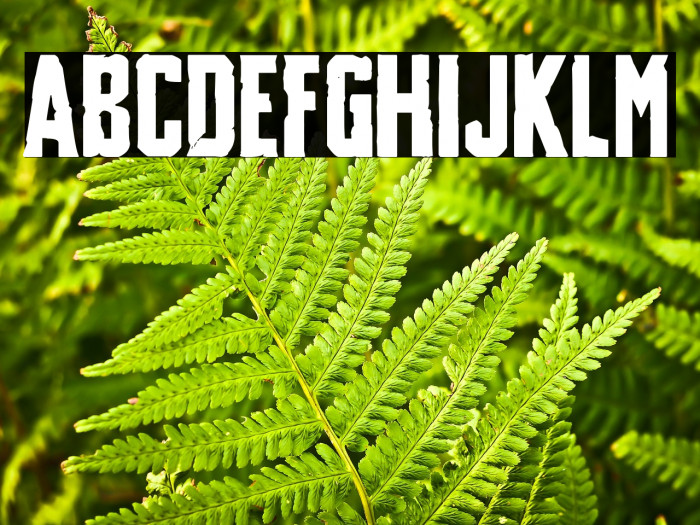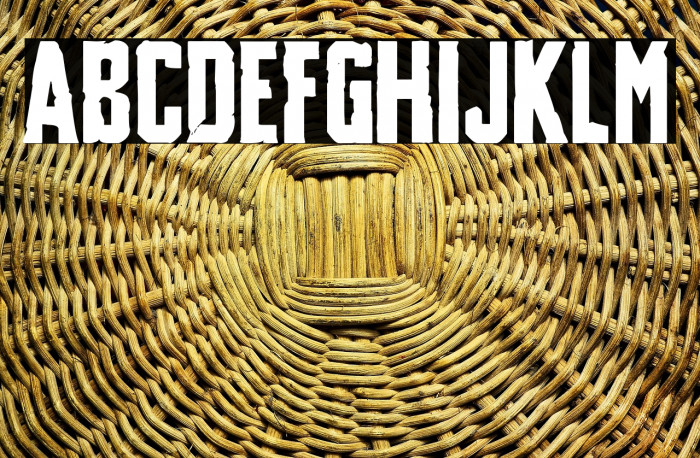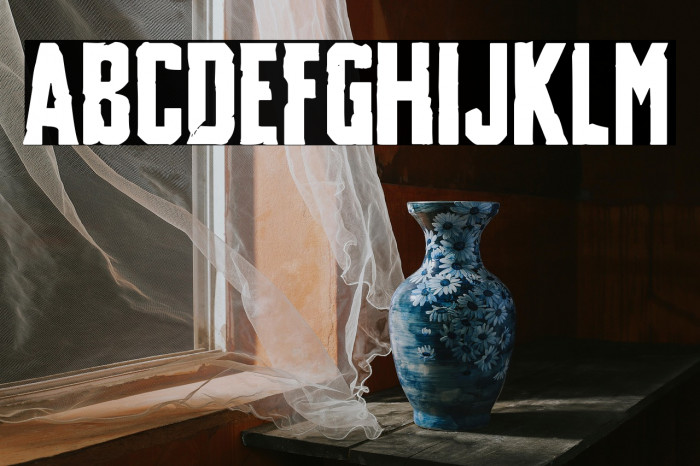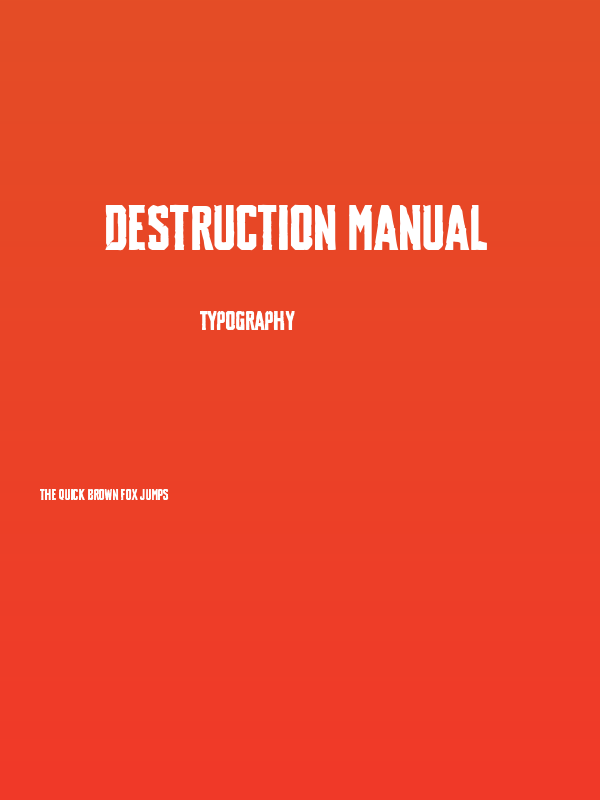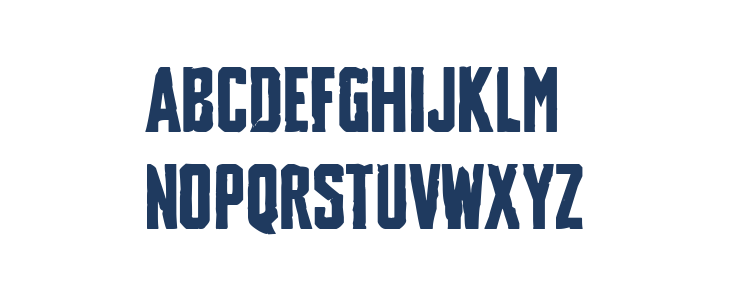
Destruction Manual Font
Destruction Manual Description
This font features a bold and rugged design, characterized by its distressed and eroded appearance. The letters have a strong, impactful presence with uneven edges that give a sense of wear and tear, reminiscent of industrial or grunge aesthetics. The uppercase and lowercase letters maintain a consistent style, with numbers and special characters following the same distressed theme. This font is ideal for projects that require a bold, eye-catching look with a touch of edginess.
| Overall Style | Grunge, Industrial |
| Proposed Projects | Ideal for posters, album covers, branding for edgy products, or any design needing a strong, gritty impact. |